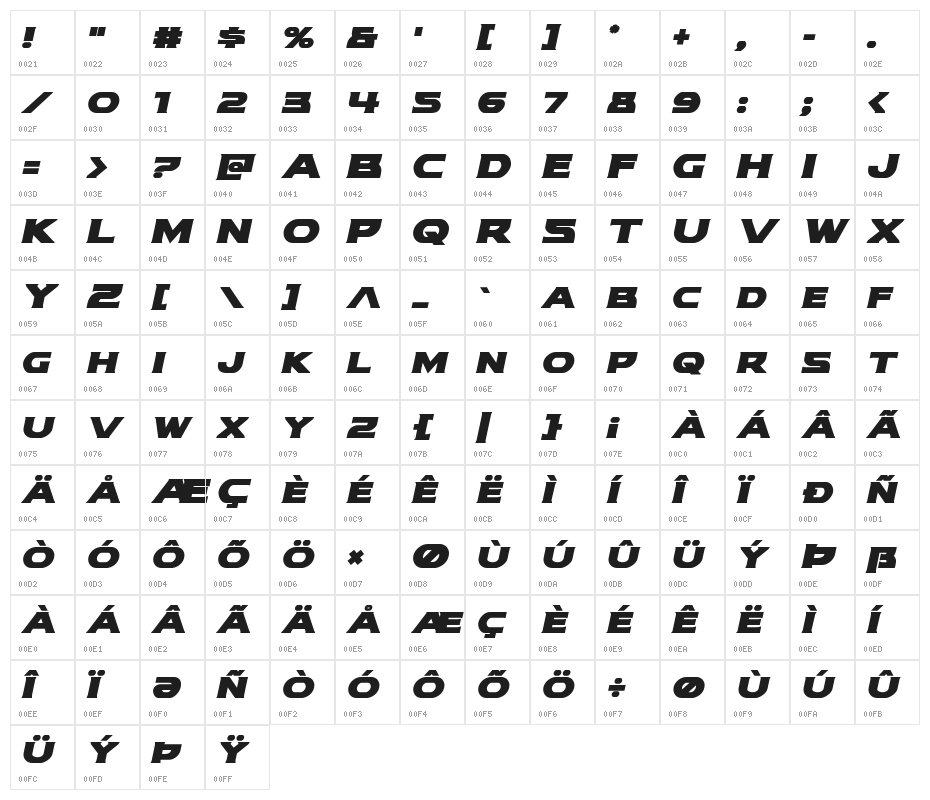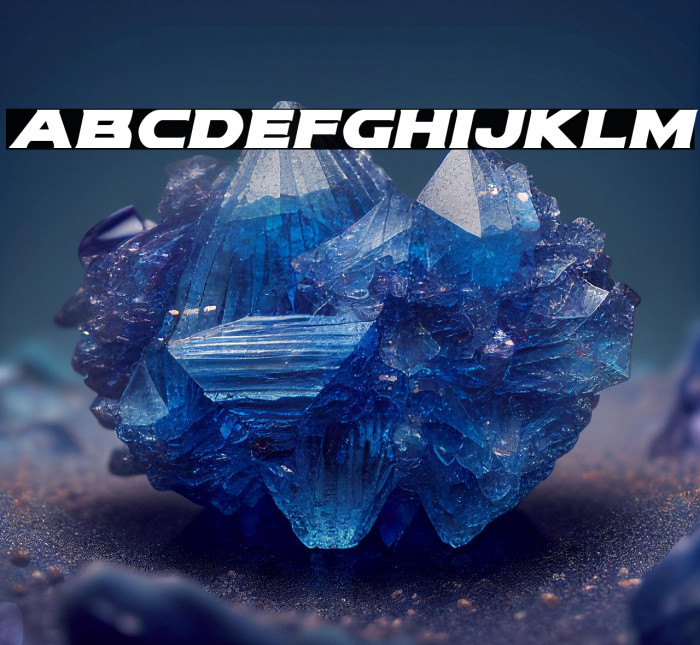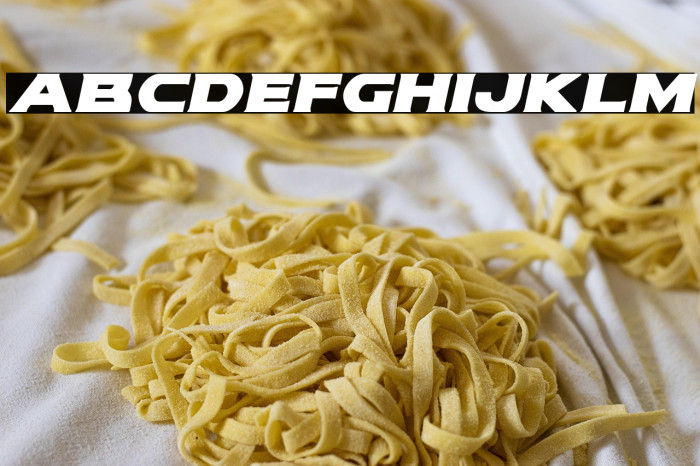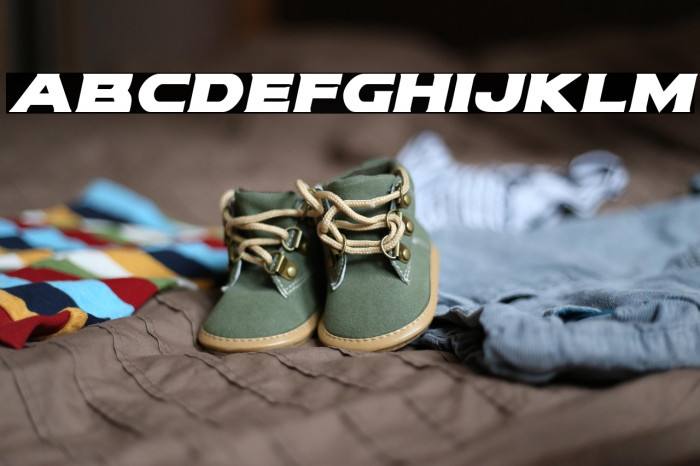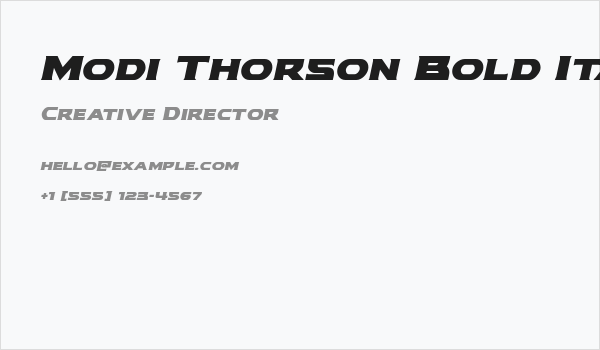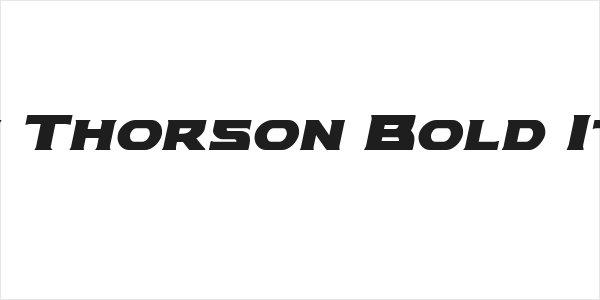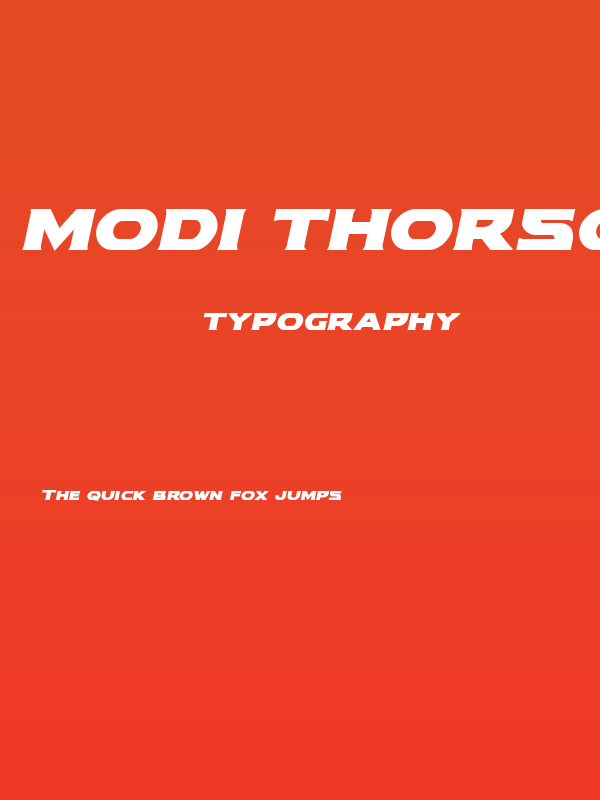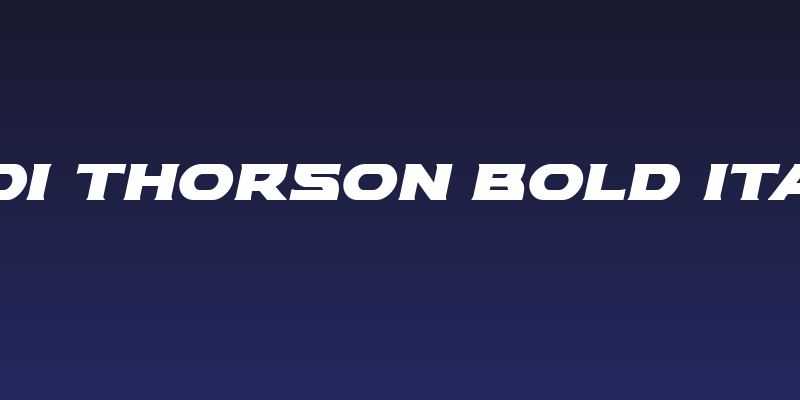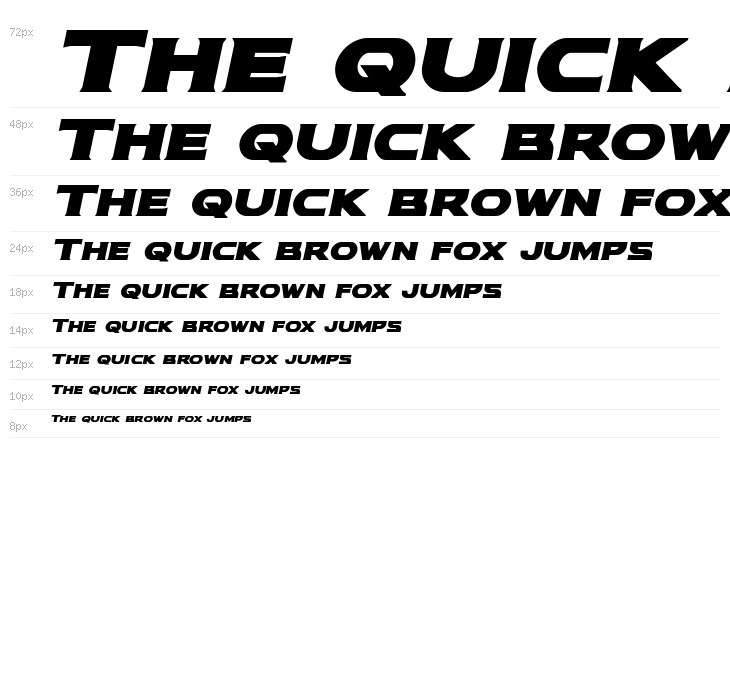
Modi Thorson Bold Italic Font
Modi Thorson Bold Italic Description
This font features a bold and italicized style with a modern, dynamic appearance. The characters are sharply angled, giving a sense of movement and energy. The uppercase and lowercase letters maintain a consistent slant, enhancing the italic effect. The numerals are bold and clear, matching the overall style of the alphabet. Special characters are distinct and maintain the same bold, italicized characteristics. The font's design is suitable for creating impactful and attention-grabbing text, making it ideal for headlines or branding materials.
| Proposed Projects | Ideal for use in branding, sports team logos, dynamic headlines, and modern advertising campaigns. |